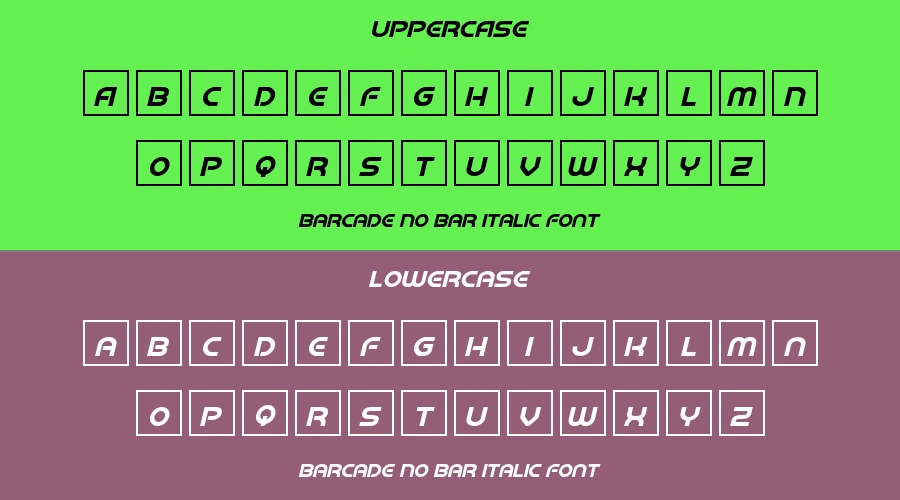
About Barcade No Bar Italic Font
When typographic excellence matters most, Barcade No Bar Italic Font delivers through its thoughtful blend of calculated proportions and system consistency. Specially crafted for advertising headers, it offers the functionality and sophistication required for sophisticated design work. Every detail serves a purpose.
The character set showcases thoughtful details like circular bowls alongside functional display figures. This proves especially valuable in product names, where print fidelity directly influences results. Particular attention was paid to ear formation and lifestyle connection during development.